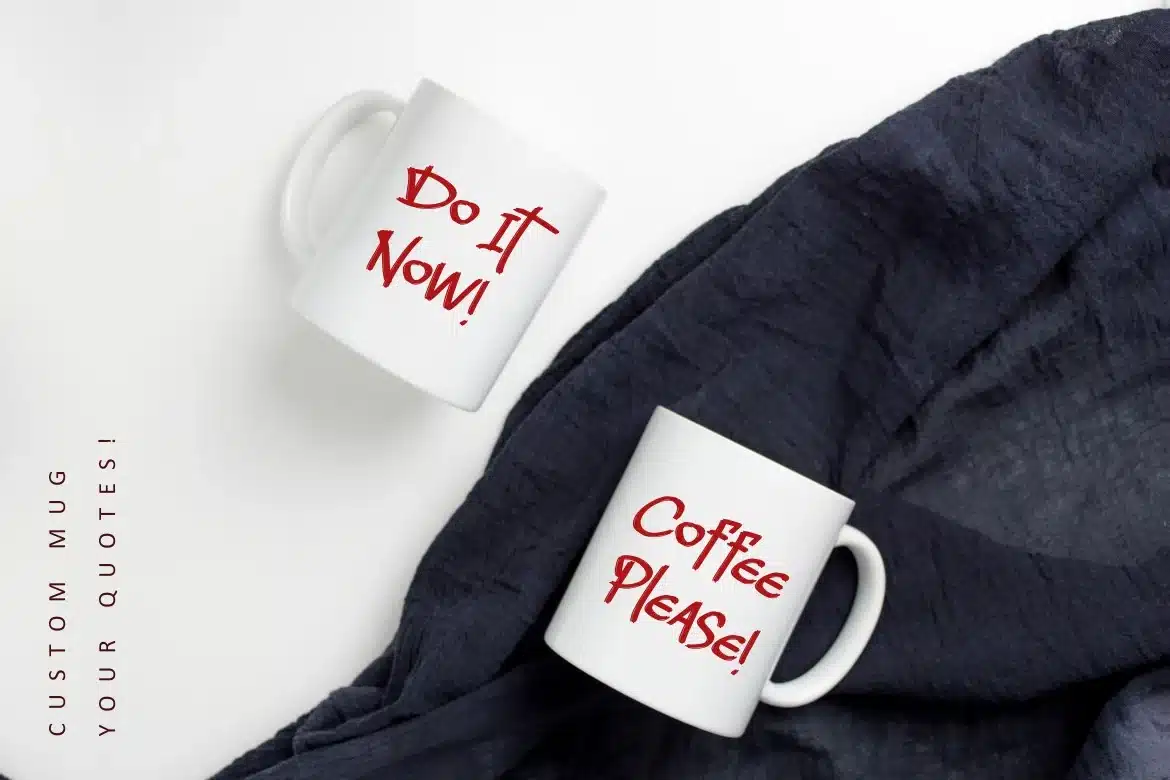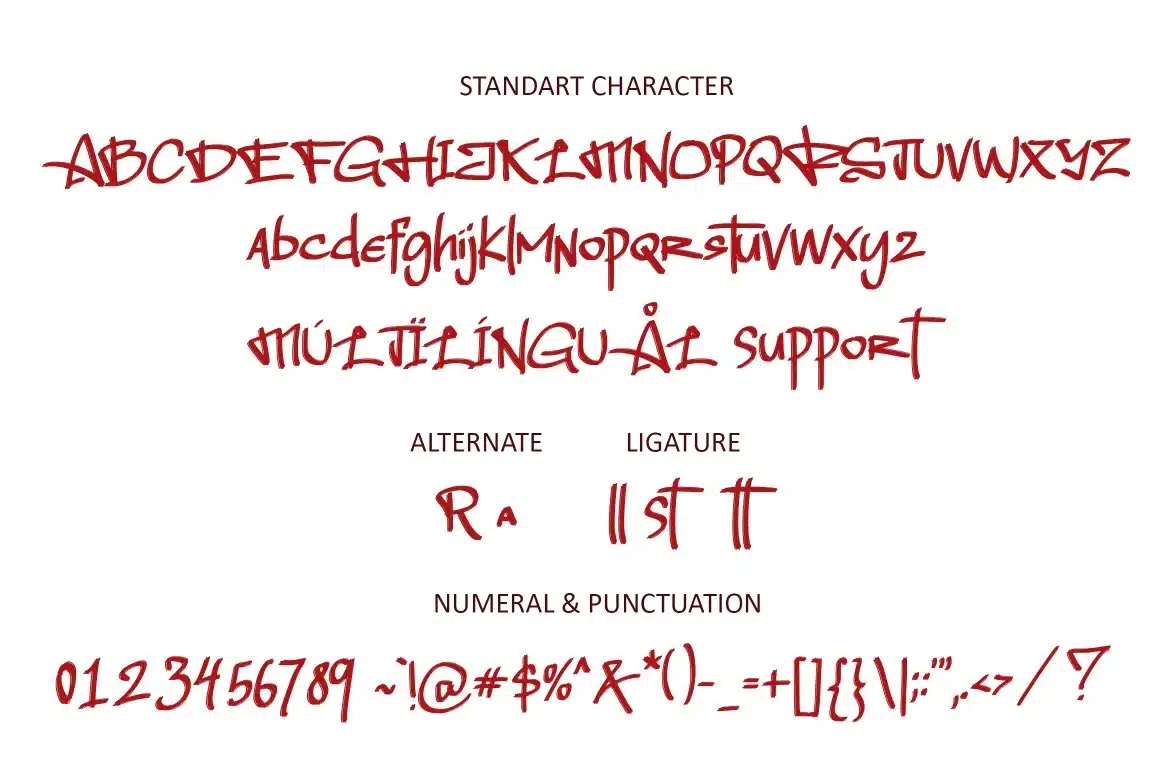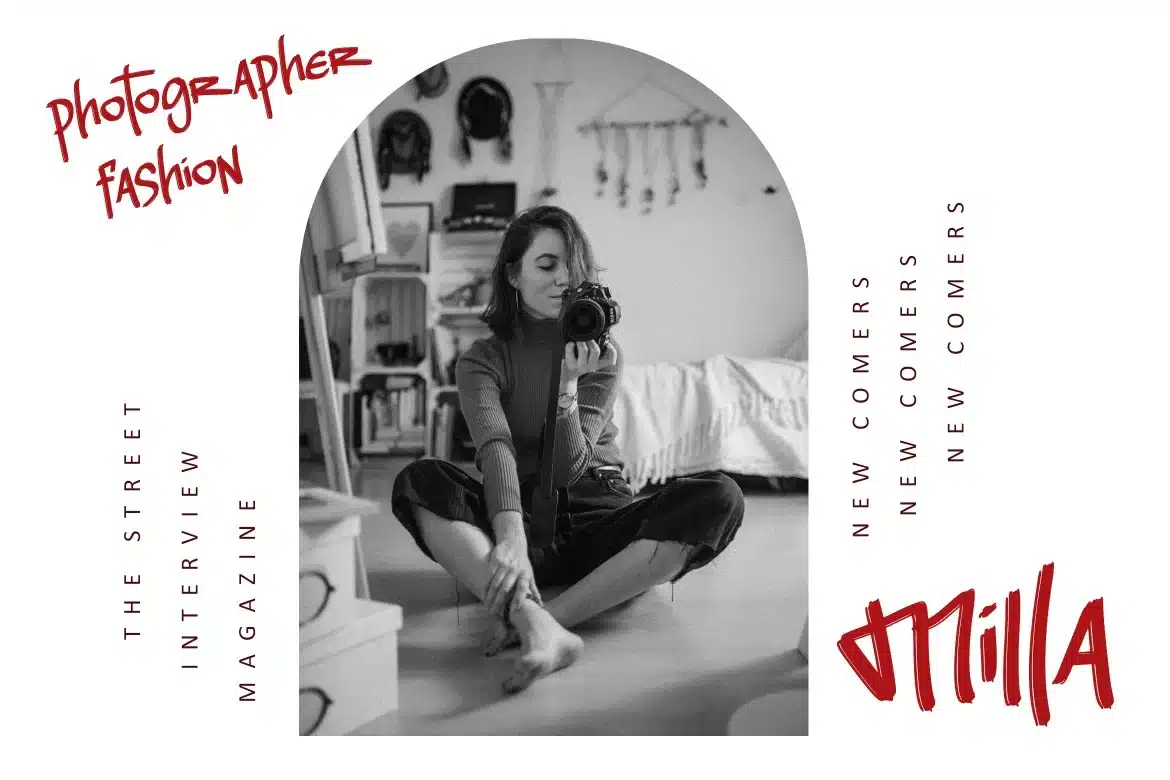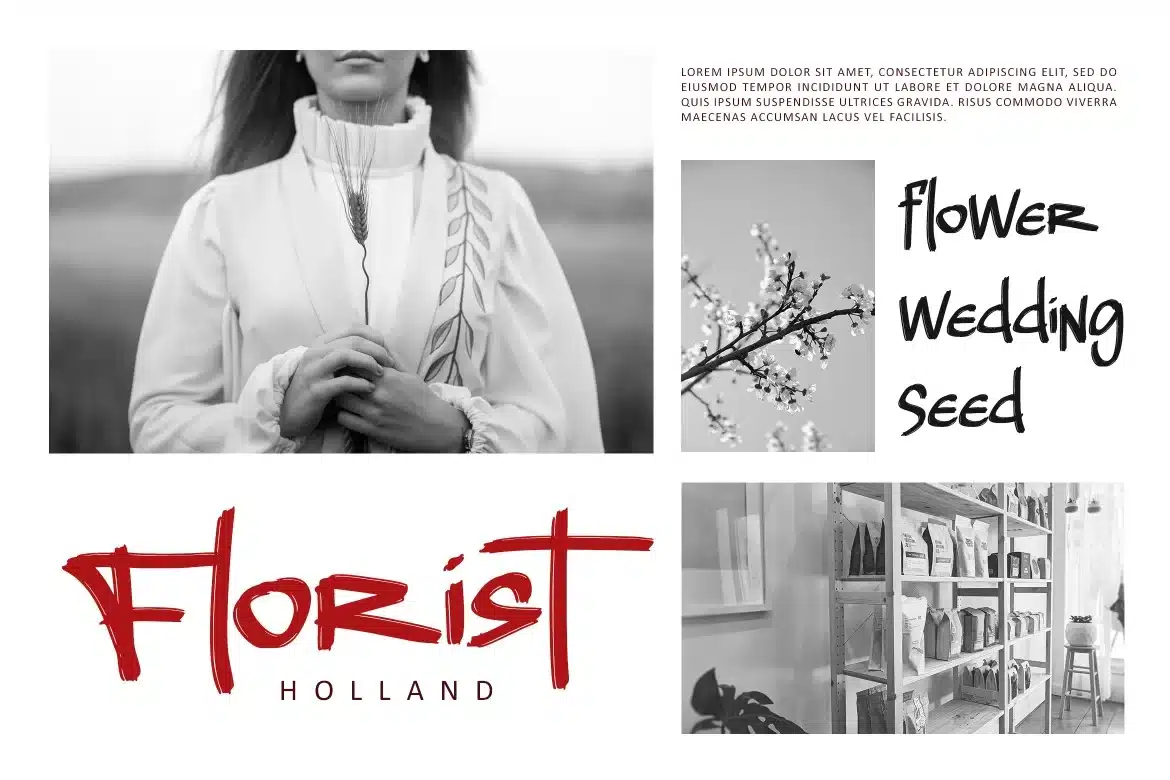
Rollstar Fashion Font
Rollstar is a neat and relaxed brush handwritten font. This original look will appeal to a wide range of crafty ideas, from letterheads and titles, fashion, and magazine.